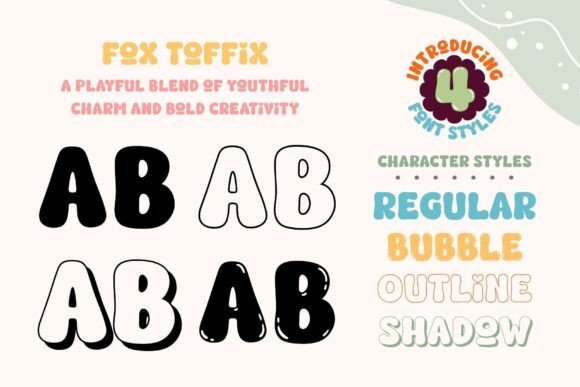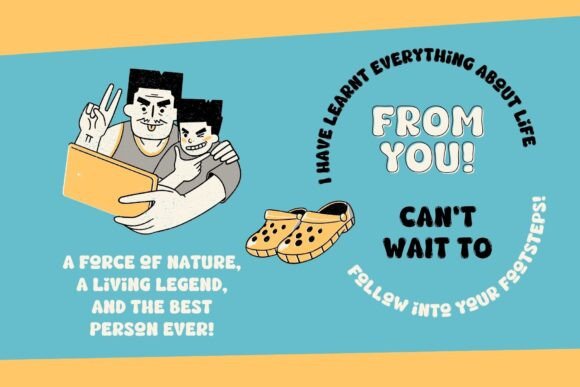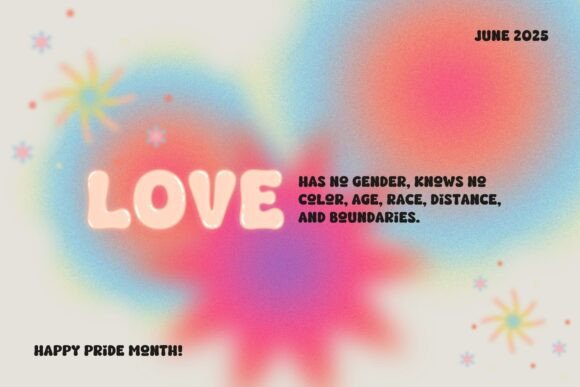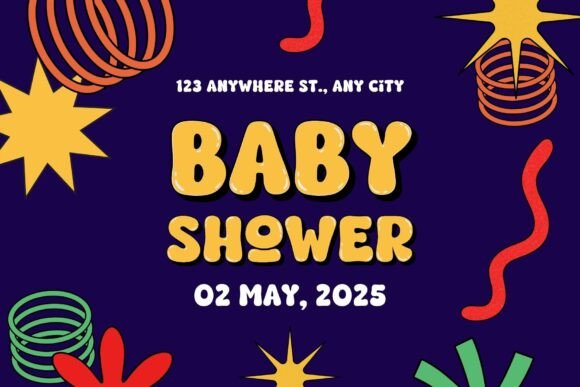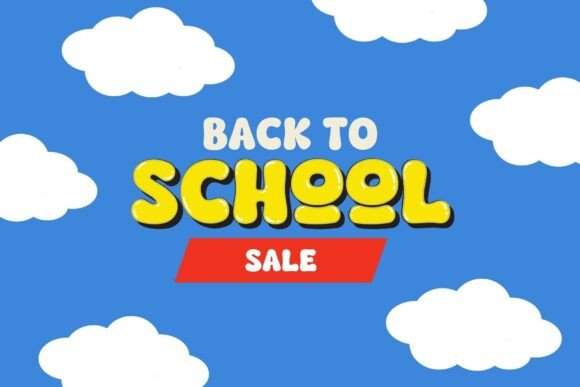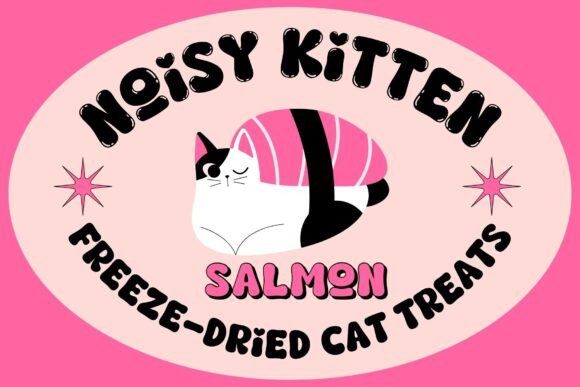
Introducing Fox Toffix: The Playful Bubble Font Family That’s a Game-Changer for Designers!
I’ll never forget the time I was working on a project for a kids’ birthday party invitation. I had all the design elements ready – the colors, the graphics, the layout – but something was missing. The font I was using just wasn’t doing it justice. It was too serious, too boring. I needed something that would capture the playful, carefree spirit of the party. That’s when I stumbled upon Fox Toffix, a fun and bouncy font family that blends youthful charm with bold creativity.
Fox Toffix is a bubble-inspired display font that’s perfect for designers who want to add a burst of playfulness to their projects. Whether you’re designing for kids, party invites, social media, packaging, or merchandise, this font family brings a fresh and friendly personality to the table.
The Fox Toffix Font Family: What’s Included?
So, what makes Fox Toffix so special? For starters, it comes in four different styles, each with its own unique character:
• 🌼 Fox Toffix Regular – The solid base style with soft, rounded edges.
• 🌼 Fox Toffix Bubble – A juicy, filled version with a glossy candy-like appearance.
• 🌼 Fox Toffix Outline – A light and airy outlined version with cartoonish flair.
• 🌼 Fox Toffix Shadow – A bold 3D-style shadow that adds depth and fun.
With these four styles, you can mix and match to create a look that’s all your own. And the best part? They’re all part of the same font family, so you can easily switch between them without having to worry about compatibility issues.
My Honest Review: What I Love (and a Few Quirks)
So, what do I love about Fox Toffix? Here are a few things that stand out:
• ✨ The playful, bubbly vibe is perfect for kids’ designs or any project that needs a bit of whimsy.
• ✅ The font is super versatile – I’ve used it for everything from social media graphics to party invitations.
• 💡 The four different styles give you tons of options for customization.
Of course, no font is perfect, and Fox Toffix is no exception. Here are a few quirks to keep in mind:
• 🤔 The font can be a bit tricky to read at smaller sizes, so it’s best to use it for headlines or titles.
• ⚠️ Some of the more intricate details can get lost when used on smaller projects, like business cards or icons.
The Story Behind Fox Toffix
So, where did Fox Toffix come from? According to the designer, Fox Toffix was inspired by the playful, carefree spirit of childhood. The designer wanted to create a font that would capture the magic and wonder of being a kid – and Fox Toffix was born.
Overall, Fox Toffix is a fantastic addition to any designer’s toolkit. Its playful, bubbly vibe is perfect for adding a bit of whimsy to your projects – and with its four different styles, you’re sure to find the perfect fit. So why not give Fox Toffix a try? Your designs will thank you!